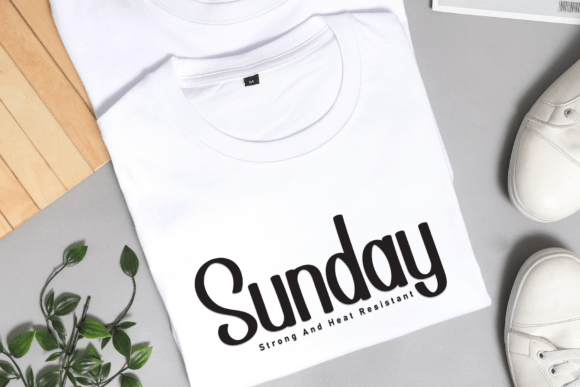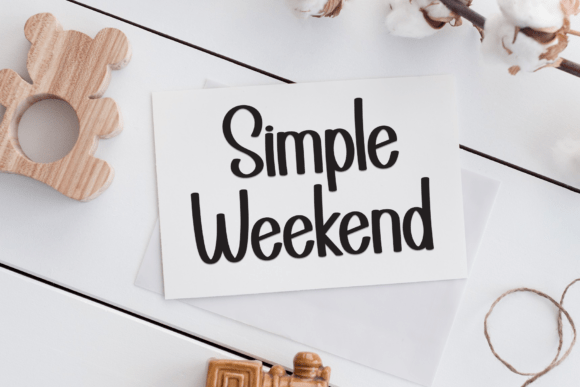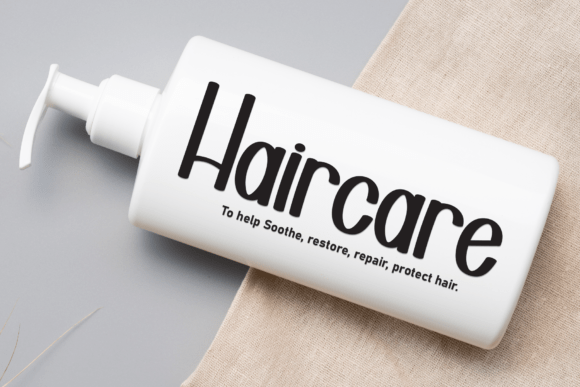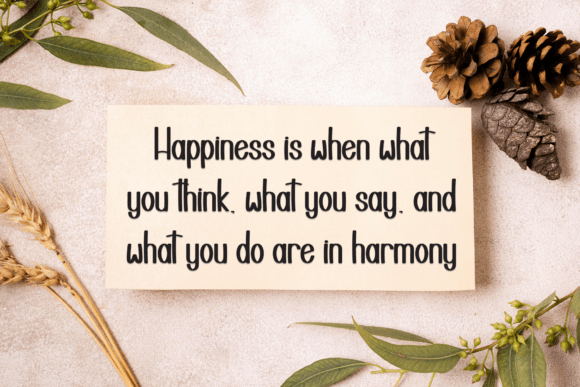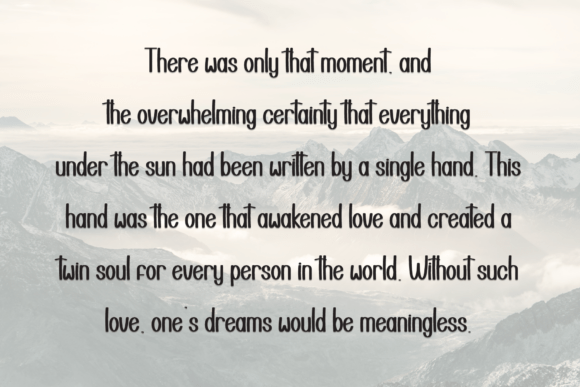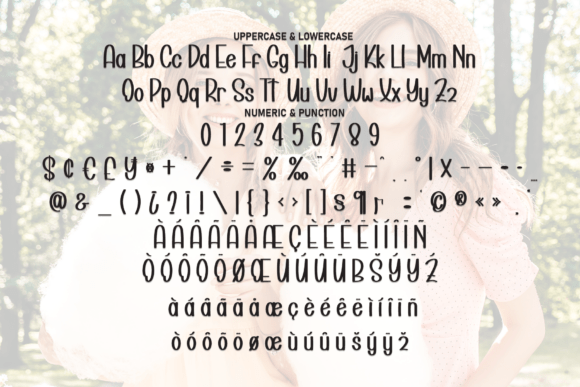
Unlock the Magic of Your Designs with Honey Sister Font
Remember the moment when a single font choice elevated your entire design project, and suddenly, everything came together in perfect harmony? That’s the magic of typography. For creative pioneers like you, finding the perfect font can be a game-changer. Introducing Honey Sister Font, a delightful display font that’s been handcrafted with love and care.
This ‘Sweet and Friendly’ gem is designed to infuse a cozy feel into your creations, making it a quintessential choice for quirky wedding invites, charming cards, and any other project that needs a touch of whimsy. As a designer, you’ll appreciate the value of Honey Sister Font in adding a unique touch to your designs, setting them apart from the ordinary and making them truly special.
Honey Sister Font Key Features
- Font Family: Honey Sister is a beautiful script font, ideal for creative projects and designs that require a touch of elegance.
- Character Set: The font includes a wide range of characters, including uppercase and lowercase letters, numbers, and punctuation marks.
- Unique Characteristics: This font features a unique, handwritten style with subtle variations in letterforms, giving it a personal and organic feel.
Honey Sister Font Review
I recently had the chance to work with the Honey Sister Font, and I’m excited to share my honest review with you.
- Unique charm**: Honey Sister Font has a distinctive, hand-drawn feel that sets it apart from more generic sans-serif fonts.
- Whimsical flair**: This font is perfect for projects that need a touch of playfulness and creativity, like children’s books or craft-related designs.
- Legibility**: Despite its quirky feel, Honey Sister Font is surprisingly easy to read, even at smaller font sizes.
- Limited flexibility**: Honey Sister Font may not be the best choice for projects that require a lot of scalability or dramatic font size changes.
- Limited language support**: As a hand-drawn font, Honey Sister may not have the same level of language support as more standardized fonts.
Overall, I think Honey Sister Font is a great choice for projects that need a touch of personality and whimsy. While it may not be the most versatile font, its unique charm and legibility make it a great addition to any designer’s toolkit.
The Honey Sister font is a beautiful, elegant script font perfect for:
Baby shower invitations and decorations
Use the Honey Sister font to add a touch of sophistication and whimsy to your designs.
Remember to pair it with a clean, simple background to let the font shine.
Alternatives to Honey Sister Font
The Honey Sister Font is a popular script font known for its elegant and feminine touch. However, for designers looking for similar alternatives, here are a few options:
Great Vibes Font is a beautiful script font that exudes a sense of sophistication and elegance. It is perfect for designing invitations, wedding cards, and other formal documents where a touch of luxury is required. Compared to Honey Sister Font, Great Vibes Font has a more refined and classic look, making it ideal for high-end designs.
Carolyna Pro Font is a modern script font that combines elegance with a touch of playfulness. It is ideal for designing magazines, brochures, and other marketing materials where a creative and eye-catching look is required. Compared to Honey Sister Font, Carolyna Pro Font has a more dynamic and versatile look, making it suitable for a wide range of designs.
Alex Brush Font is a beautiful script font that has a warm and inviting touch. It is perfect for designing greeting cards, posters, and other materials where a personal and emotional connection is required. Compared to Honey Sister Font, Alex Brush Font has a more handwritten and natural look, making it ideal for designs that require a sense of authenticity.